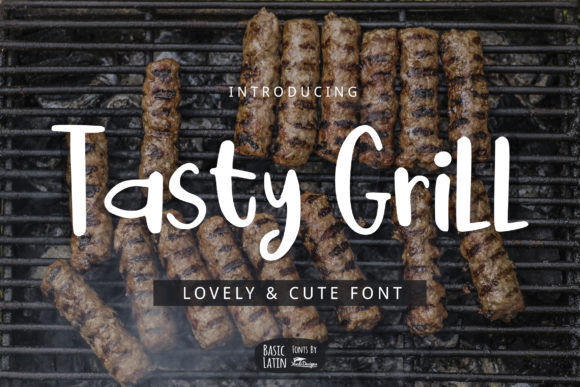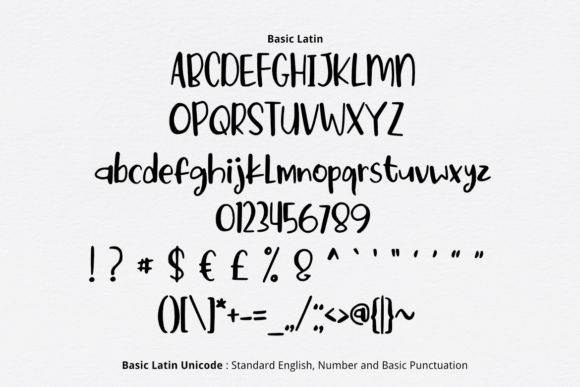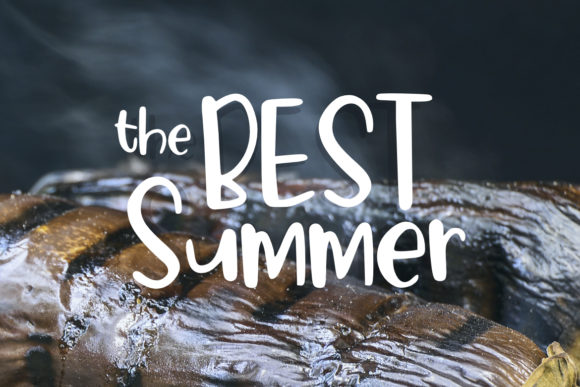
Tasty Grill Font
About Tasty Grill Font
Tasty Grill is a spectacularly fun script with a playful feel. Use it to turn any design project into a true standout.